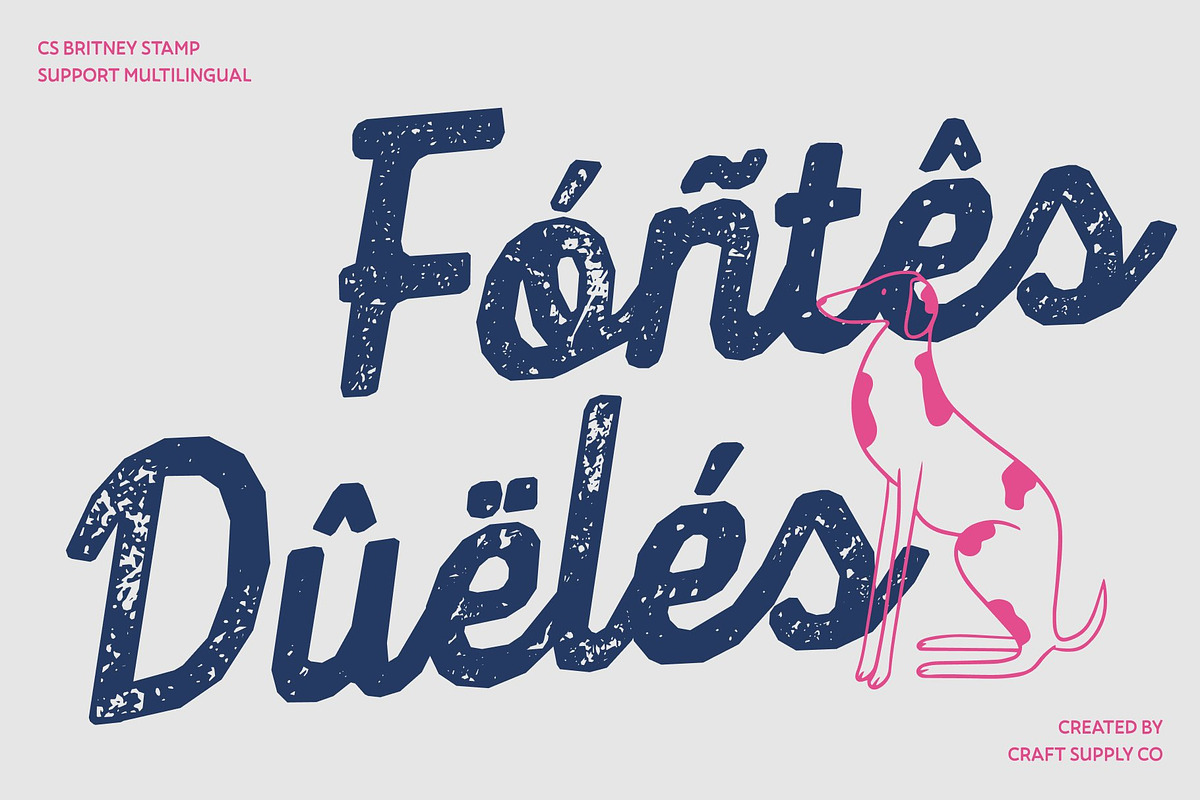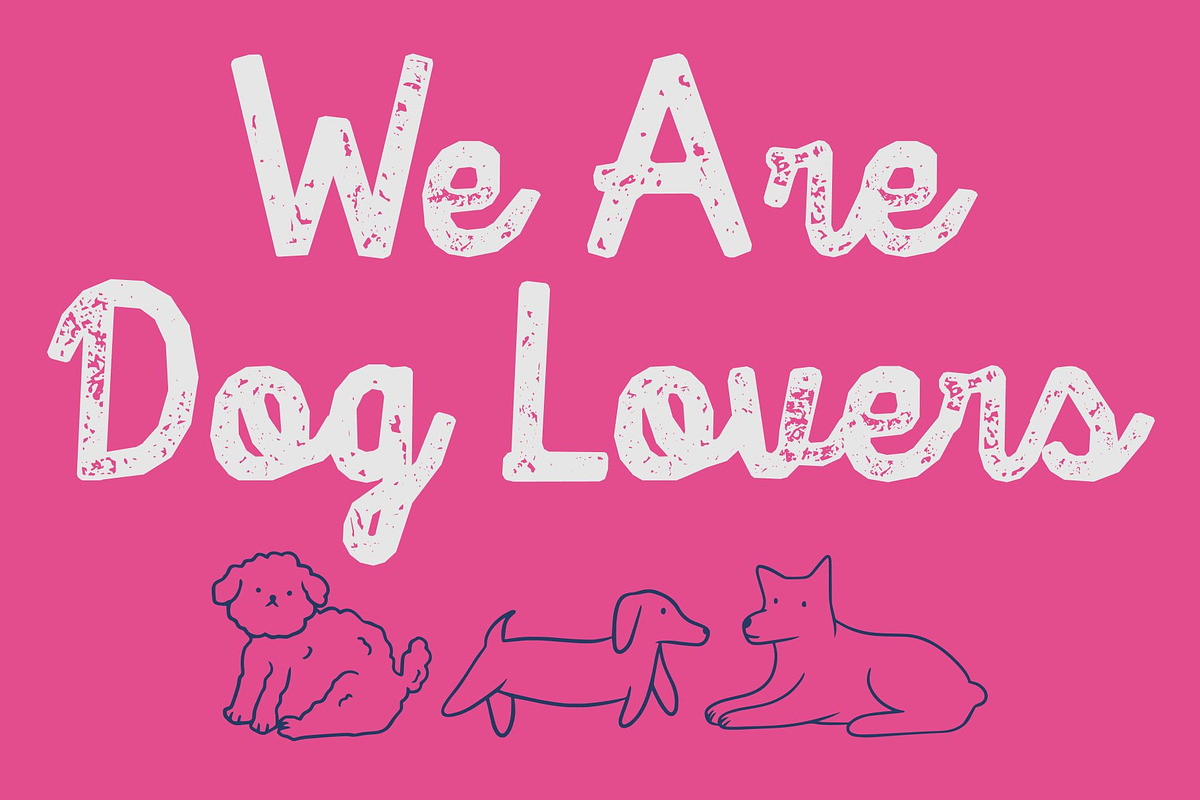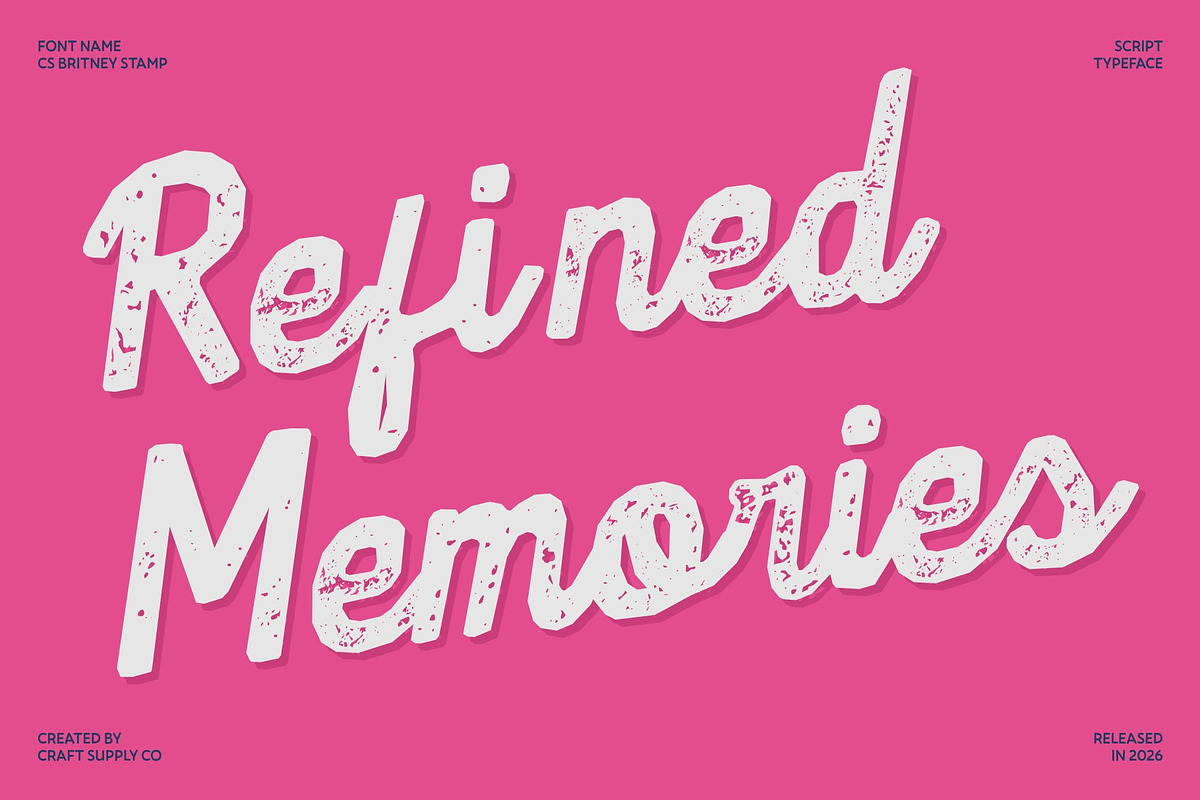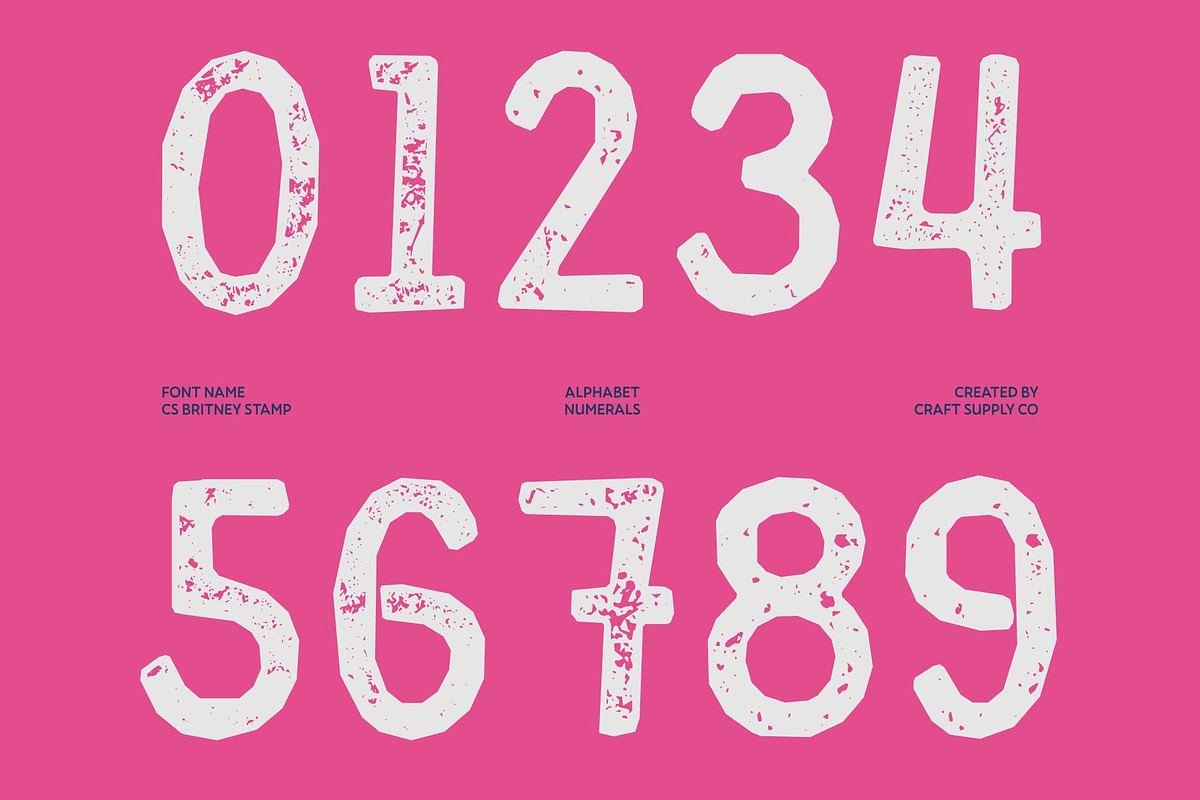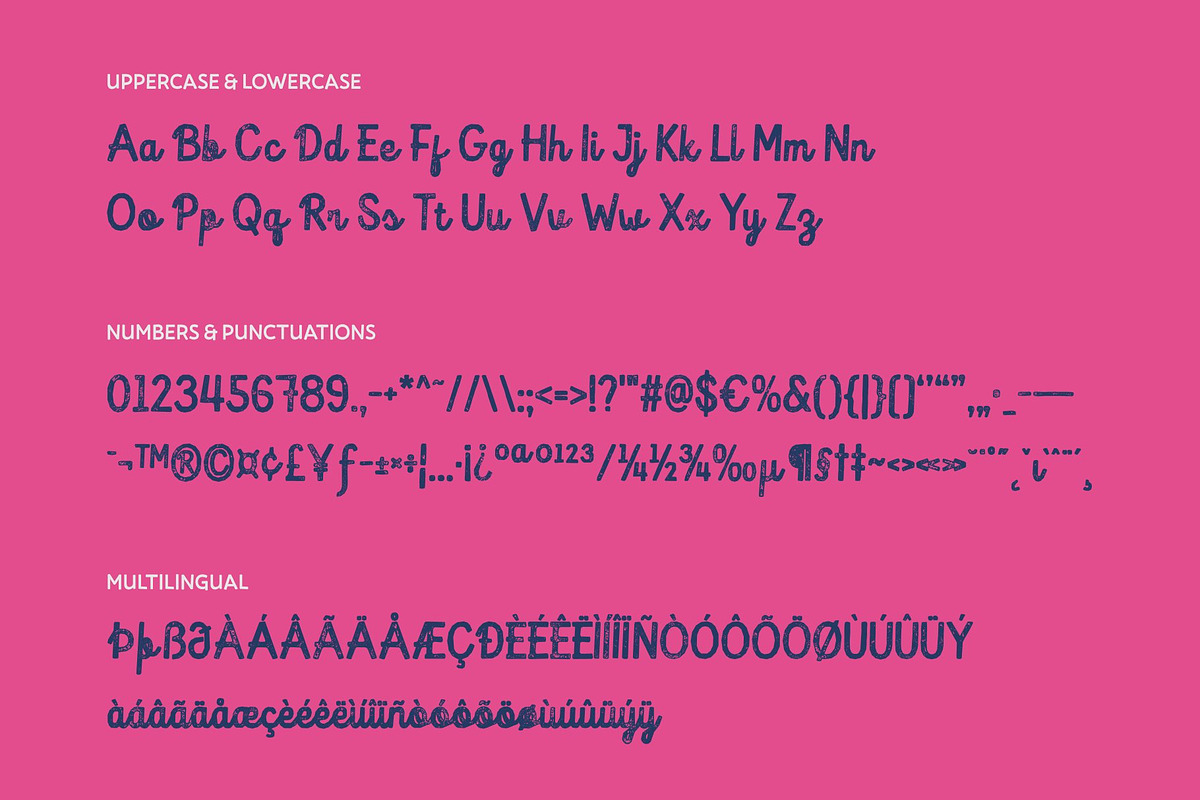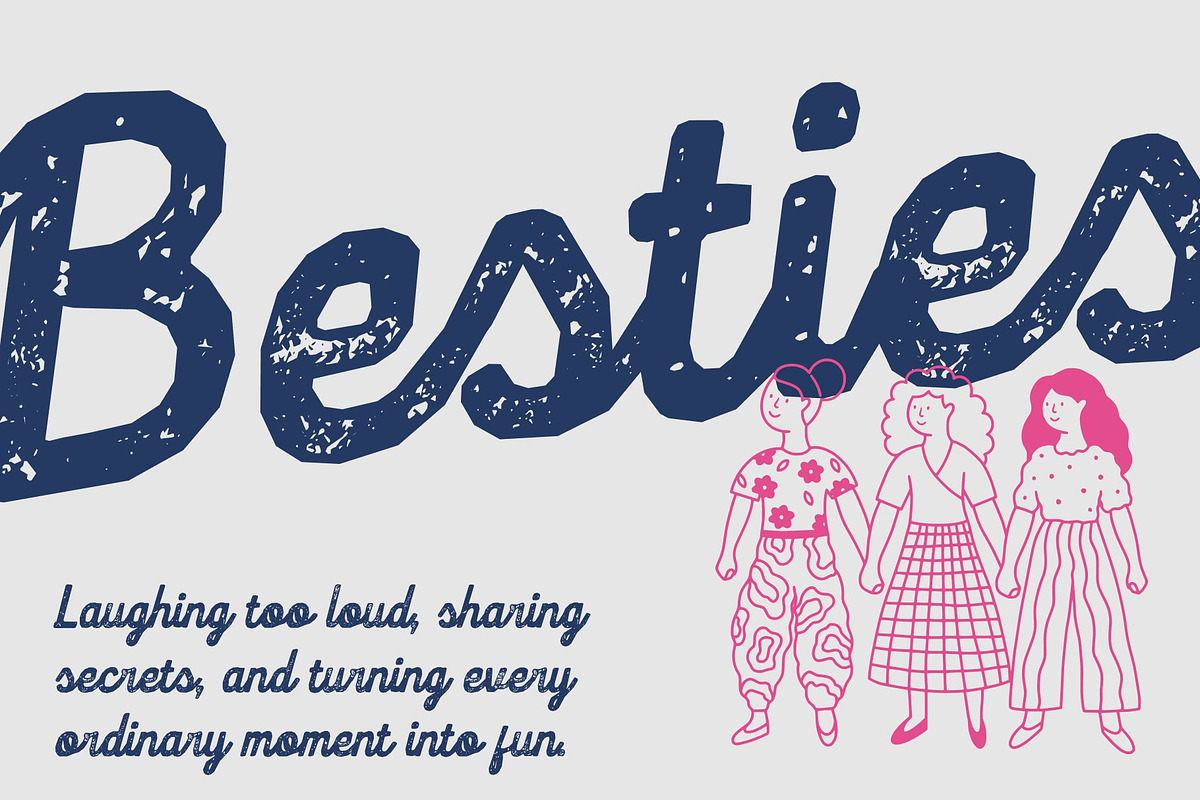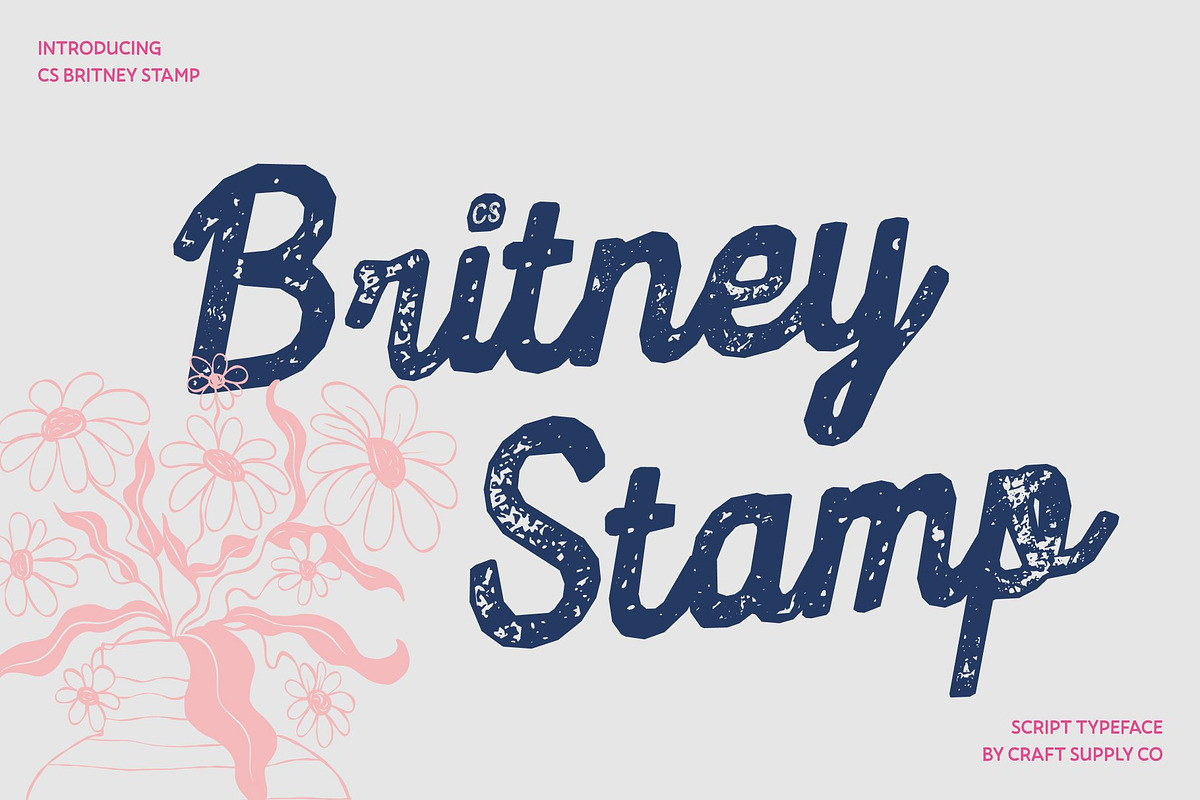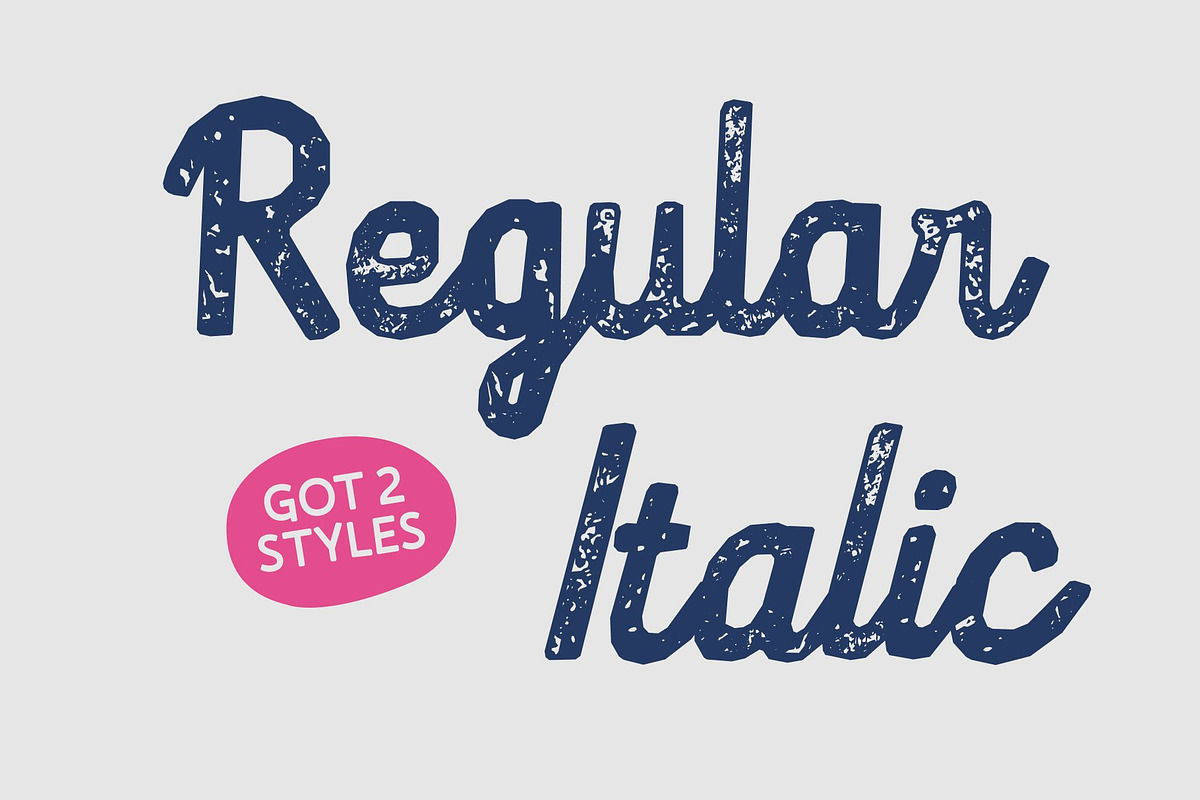
CS Britney Stamp
CS Britney Stamp – Effortless Elegance with Textured Grace
Graceful Script with Feminine Charm This is a modern script font designed to capture the softness and elegance of handwritten lettering. Its flowing strokes and slim, refined curves bring a feminine and luxurious character to every word. Enhanced with a subtle stamped texture, the font gains a handcrafted depth that enriches its graceful and expressive style.
Delicate Yet Confident Letterforms With balanced rhythm and smooth connections, radiates modern beauty that feels both gentle and stylish. Each character is carefully shaped to convey subtle sophistication, while the stamped texture adds a tactile quality that enhances its visual warmth. This refined balance makes it perfect for wedding invitations, boutique branding, and personal projects that require an elegant and intimate tone.
Warmth and Personality in Every Line Beyond its aesthetic charm, carries a warm and personal feel that reflects authentic handwriting. The textured stamp effect reinforces its handcrafted appeal, making typography feel more human, expressive, and engaging while still maintaining the polished look needed for premium design.
Perfect for Elegant and Romantic Design From luxury branding and beauty campaigns to social media content and elegant stationery, this font adapts beautifully to a wide range of creative applications. Its flowing script, feminine charm, and textured elegance make it an ideal choice for designers who want to combine softness, sophistication, and personality in visually captivating typography.